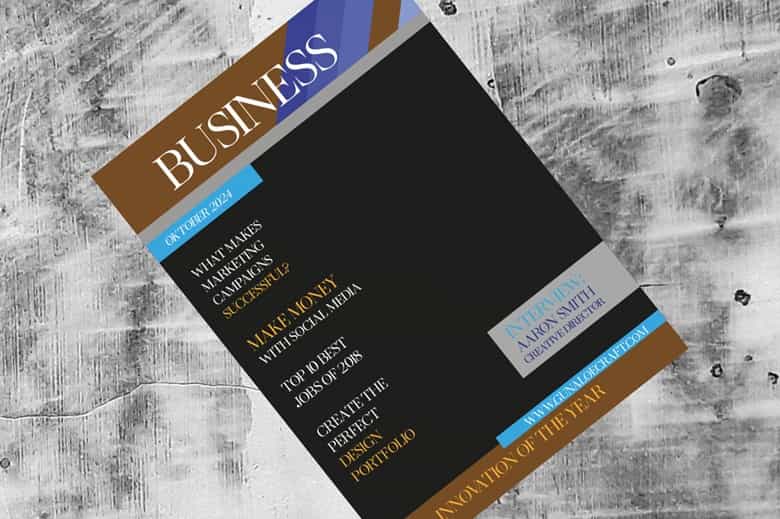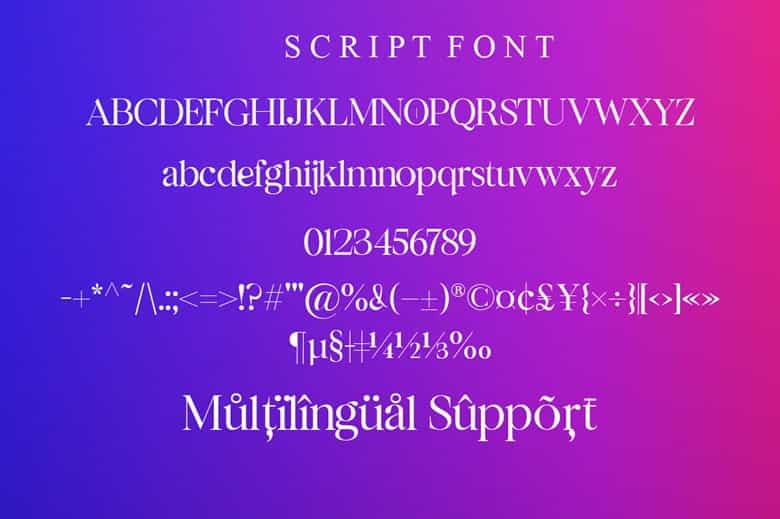
Gundala is a modern editorial serif font. Gundala is designed and developed by Gunaloecraft. This excellent contemporary type face has been manufactured with an obsessive care, with the mission to bring into life multiple creations, such as logos, typography creations, quotes and covers for magazine or books among others. It goes even further than that.